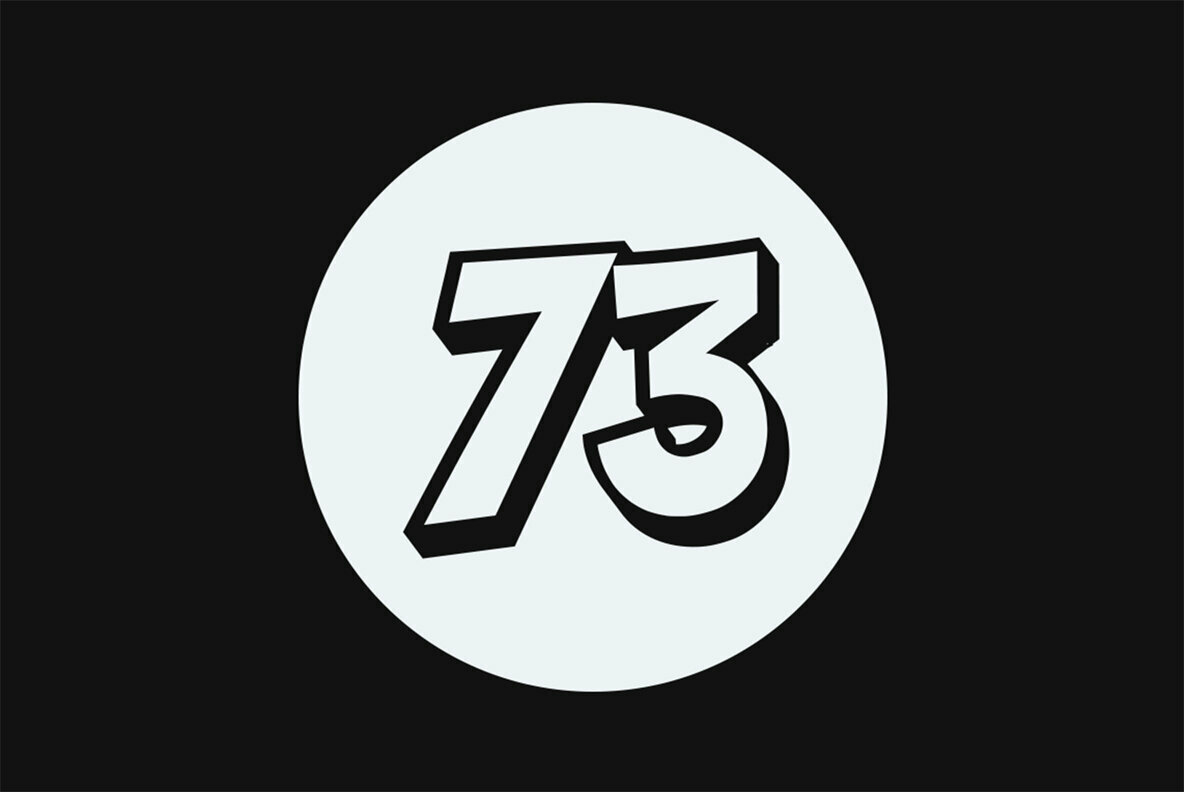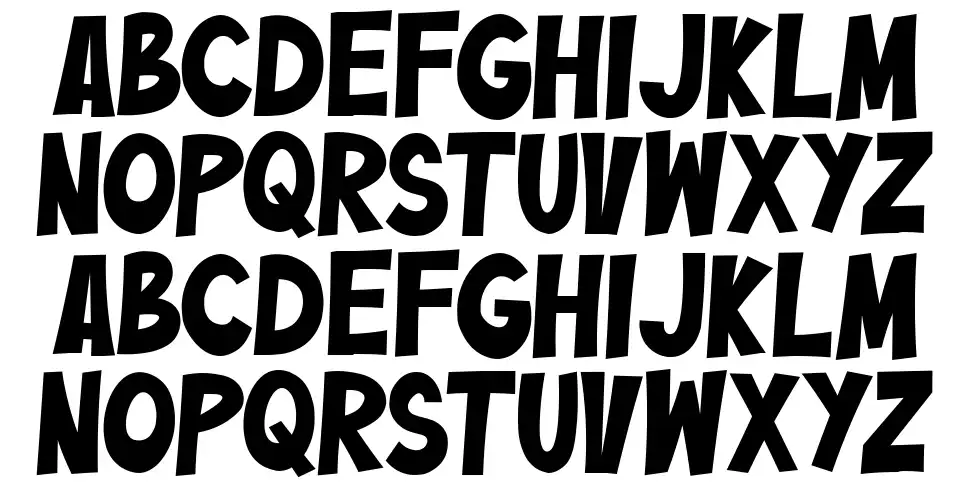
Bazinga Regular Font . Taking inspiration from sheldon the most famous joke word in comic books: Is a fancy type font that can be used on any device such as pc, mac, linux, ios and android. A bold, playful font with a cartoonish style. Is a fun and thick lettered display font, that can easily stand out. Votes, rated based on results identification. This font has 2 styles available (. Is a fabulous new layered comic book style font. Bazinga!, this fantastic font can be used in conjunction with any other font in our font family to.
Bazinga!, this fantastic font can be used in conjunction with any other font in our font family to. A bold, playful font with a cartoonish style. Taking inspiration from sheldon the most famous joke word in comic books: Is a fun and thick lettered display font, that can easily stand out. Is a fancy type font that can be used on any device such as pc, mac, linux, ios and android. This font has 2 styles available (. Votes, rated based on results identification. Is a fabulous new layered comic book style font.
Bazinga Regular Font This font has 2 styles available (. Is a fabulous new layered comic book style font. Votes, rated based on results identification. Taking inspiration from sheldon the most famous joke word in comic books: Is a fancy type font that can be used on any device such as pc, mac, linux, ios and android. A bold, playful font with a cartoonish style. Bazinga!, this fantastic font can be used in conjunction with any other font in our font family to. This font has 2 styles available (. Is a fun and thick lettered display font, that can easily stand out.
Bazinga! font Bazinga Regular Font This font has 2 styles available (. Is a fabulous new layered comic book style font. A bold, playful font with a cartoonish style. Votes, rated based on results identification. Bazinga!, this fantastic font can be used in conjunction with any other font in our font family to. Is a fancy type font that can be used on any device. Bazinga Regular Font.
Bazinga type calligraphy lettering typography Calligraphy words Bazinga Regular Font This font has 2 styles available (. Taking inspiration from sheldon the most famous joke word in comic books: A bold, playful font with a cartoonish style. Votes, rated based on results identification. Is a fabulous new layered comic book style font. Bazinga!, this fantastic font can be used in conjunction with any other font in our font family to.. Bazinga Regular Font.
Bazinga! Comic Layered Font, Fonts GraphicRiver Bazinga Regular Font Bazinga!, this fantastic font can be used in conjunction with any other font in our font family to. Taking inspiration from sheldon the most famous joke word in comic books: A bold, playful font with a cartoonish style. Is a fabulous new layered comic book style font. Is a fancy type font that can be used on any device such. Bazinga Regular Font.
Cupcake Bazinga! (Font Design) by KawaiiStudios on DeviantArt Bazinga Regular Font Is a fun and thick lettered display font, that can easily stand out. This font has 2 styles available (. A bold, playful font with a cartoonish style. Votes, rated based on results identification. Taking inspiration from sheldon the most famous joke word in comic books: Is a fabulous new layered comic book style font. Is a fancy type font. Bazinga Regular Font.
Bazinga! Font Family · 1001 Fonts Bazinga Regular Font A bold, playful font with a cartoonish style. Is a fabulous new layered comic book style font. This font has 2 styles available (. Is a fancy type font that can be used on any device such as pc, mac, linux, ios and android. Votes, rated based on results identification. Is a fun and thick lettered display font, that can. Bazinga Regular Font.
Bazinga! Font Bazinga Regular Font Is a fun and thick lettered display font, that can easily stand out. Is a fancy type font that can be used on any device such as pc, mac, linux, ios and android. This font has 2 styles available (. Votes, rated based on results identification. Is a fabulous new layered comic book style font. Bazinga!, this fantastic font can. Bazinga Regular Font.
Quick Tip Creating a Bazinga! Text Treatment in Adobe Illustrator Bazinga Regular Font Votes, rated based on results identification. Is a fabulous new layered comic book style font. Taking inspiration from sheldon the most famous joke word in comic books: Bazinga!, this fantastic font can be used in conjunction with any other font in our font family to. A bold, playful font with a cartoonish style. This font has 2 styles available (.. Bazinga Regular Font.
Bazinga! Font by Ardana Creative · Creative Fabrica Bazinga Regular Font Is a fun and thick lettered display font, that can easily stand out. Is a fancy type font that can be used on any device such as pc, mac, linux, ios and android. This font has 2 styles available (. A bold, playful font with a cartoonish style. Is a fabulous new layered comic book style font. Bazinga!, this fantastic. Bazinga Regular Font.
Bazinga! Font Download Bazinga Regular Font Is a fabulous new layered comic book style font. Votes, rated based on results identification. This font has 2 styles available (. Is a fun and thick lettered display font, that can easily stand out. Taking inspiration from sheldon the most famous joke word in comic books: Is a fancy type font that can be used on any device such. Bazinga Regular Font.